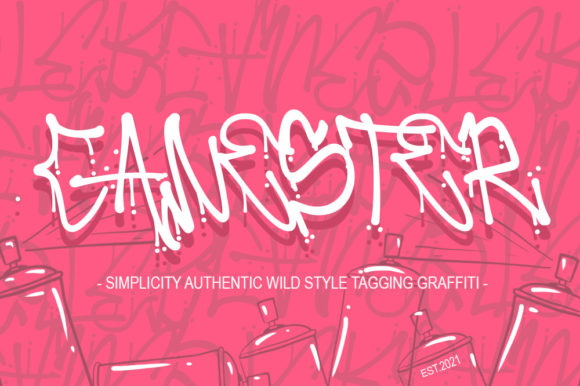
**Canester: The Ultimate Font for Urban Edge and Artistic Expression**
Unleash your creativity with Canester, the graffiti-inspired display font that captures the raw energy and vibrancy of street art. This edgy and captivating typeface is your secret weapon for creating designs that resonate with a youthful, rebellious spirit.
**Elevate Your Style with Canester**
Immerse yourself in the world of urban fashion, where Canester reigns supreme. Its unique graffiti-like aesthetic adds an instant touch of cool to t-shirts, sportswear, and clothing. Whether you're a seasoned designer or just starting your artistic journey, Canester empowers you to create designs that turn heads and make a lasting impression.
**Express Yourself with Limitless Possibilities**
Canester's versatility knows no bounds. Its bold, eye-catching letters are perfect for logos and advertisements, demanding attention and leaving a lasting impact. Unleash your imagination and experiment with different colors and textures to create designs that truly reflect your unique style.
**The Perfect Font for T-shirt Printing**
Canester is the ultimate choice for t-shirt designs that ooze attitude and individuality. Its edgy, graffiti-inspired aesthetic perfectly complements streetwear and urban fashion, allowing you to create t-shirts that stand out from the crowd.
**Why Choose Canester?**
* **Captivating Graffiti-Styled Aesthetic:** Add a touch of urban flair to your designs with Canester's unique graffiti-inspired lettering.
* **Endless Design Possibilities:** Unleash your creativity and experiment with logos, advertisements, clothing, and more.
* **Perfect for T-shirt Printing:** Create t-shirts that make a statement and reflect your unique style with Canester's edgy, attention-grabbing design.
* **High-Quality and Professional:** Designed by the talented team at fluffyartstudio, Canester ensures exceptional quality and professional results.